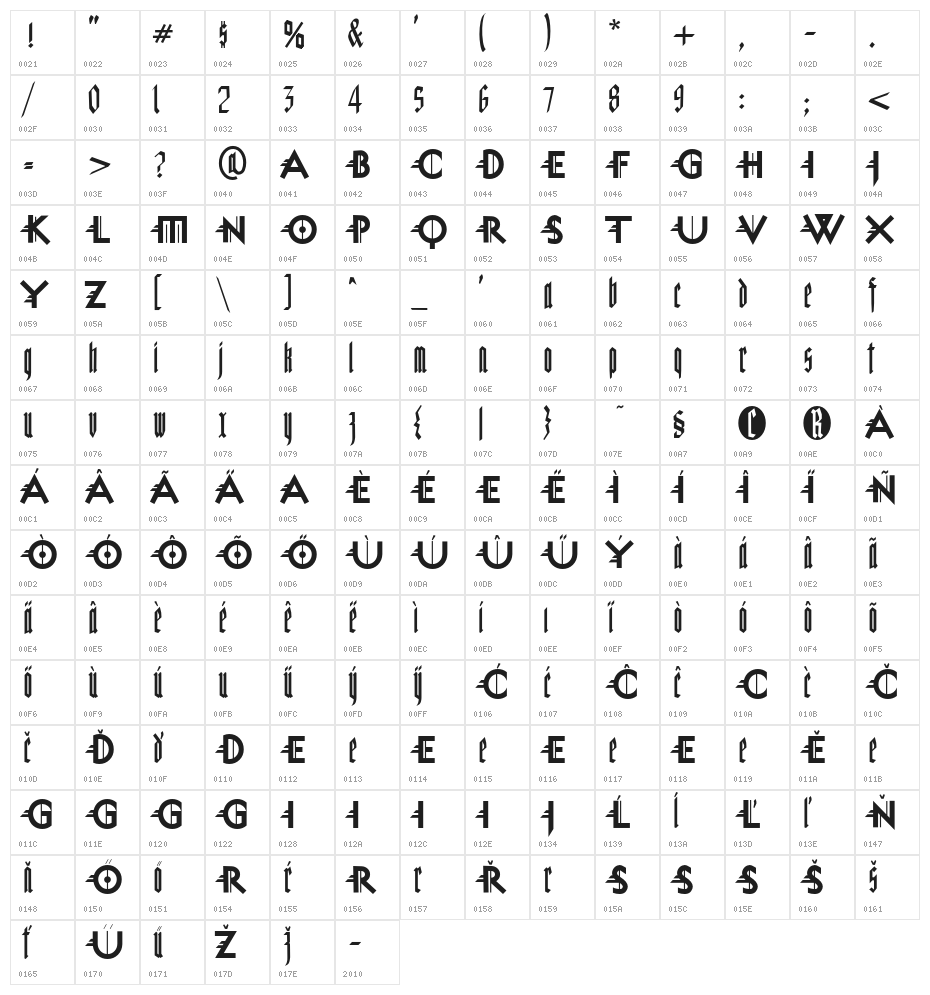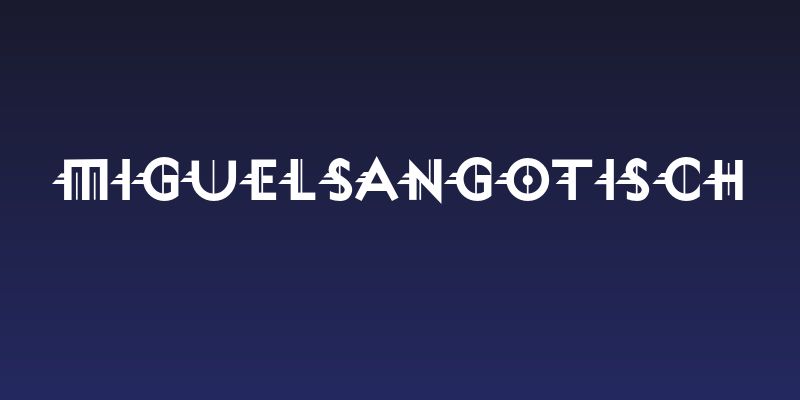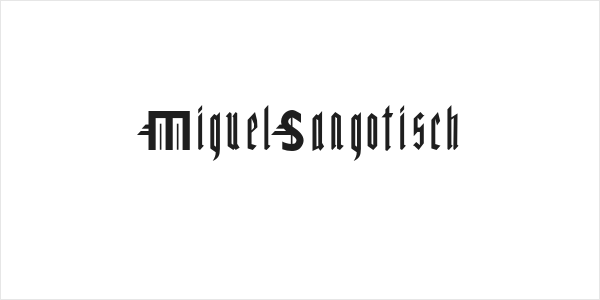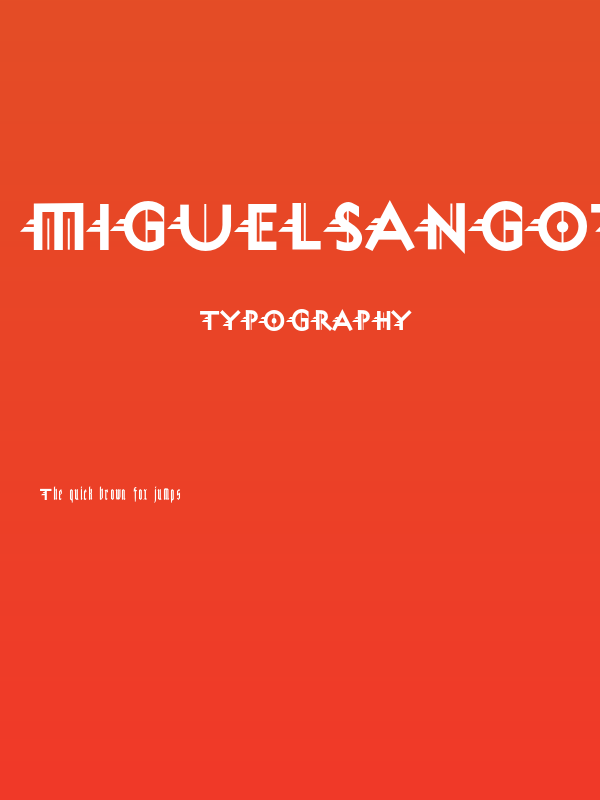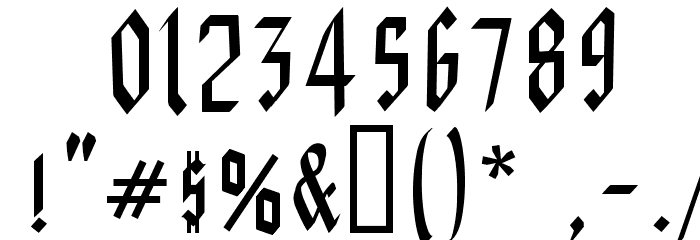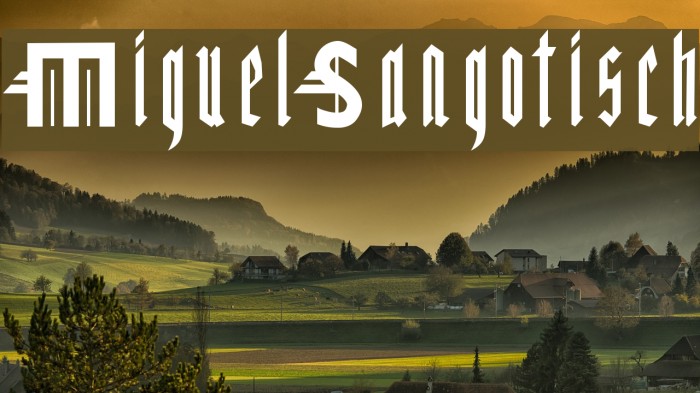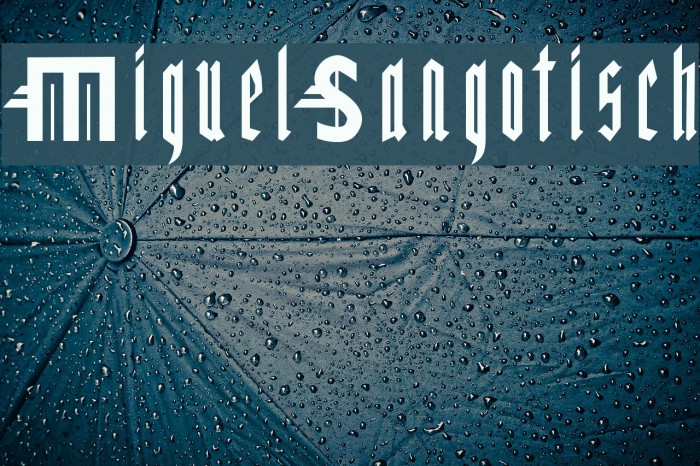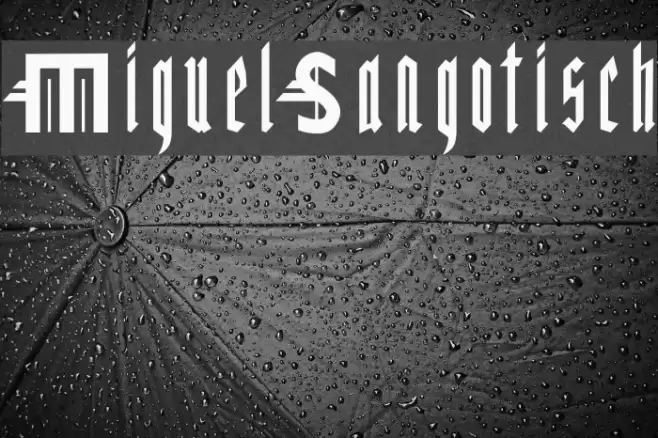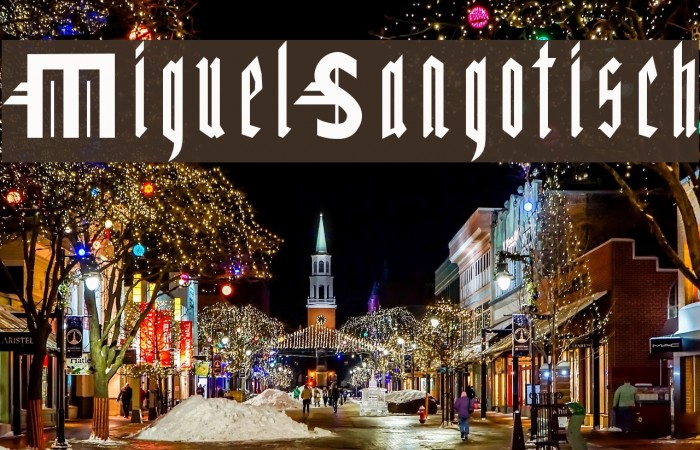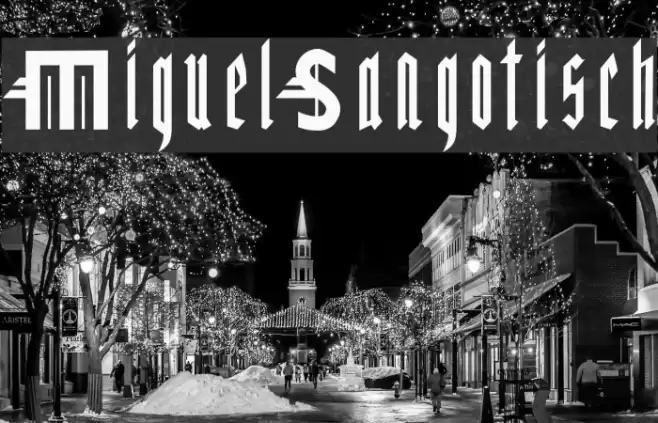
MiguelSangotisch Font
This font features a bold and striking design with a unique blend of geometric and angular elements. The uppercase letters are characterized by sharp edges and diagonal lines that intersect through the middle, creating a dynamic and futuristic appearance. The lowercase letters maintain a similar angular style, with elongated vertical strokes that give them a tall and narrow look. The numbers are consistent with the overall design, featuring sharp angles and a bold presence. Special characters are designed to complement the font's distinctive style, making it suitable for attention-grabbing headlines and creative projects.
| Proposed Projects | Ideal for branding, posters, album covers, and any project requiring a modern, edgy look. |